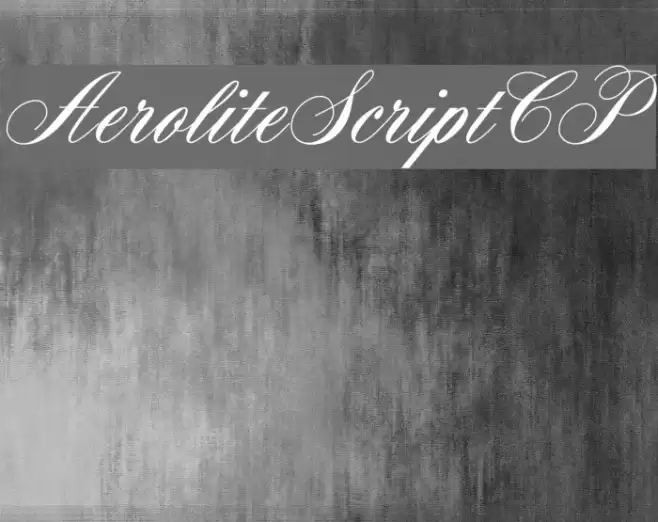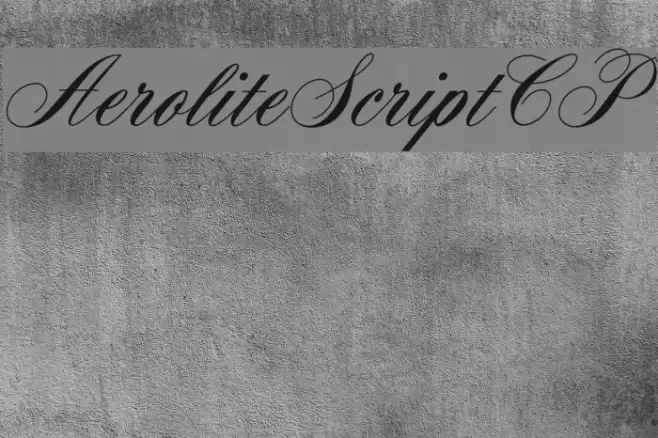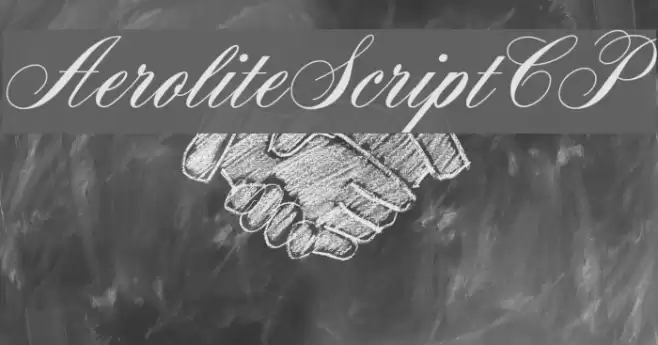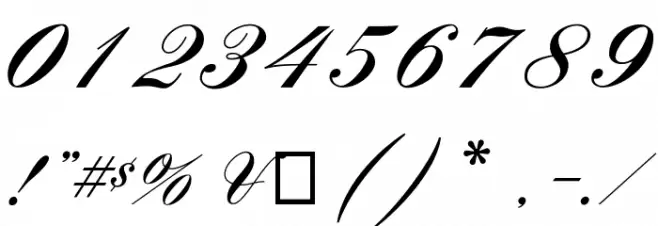
AeroliteScriptCP
This elegant script font features a flowing, cursive style with graceful, sweeping curves and loops. The uppercase letters are ornate and sophisticated, while the lowercase letters maintain a consistent, smooth flow. The numerals are stylish and complement the overall aesthetic, making them suitable for decorative purposes. The special characters are designed with the same attention to detail, ensuring a cohesive look across all glyphs. This font exudes a sense of luxury and refinement, making it ideal for formal invitations, branding, and other high-end design projects.
An elegant script font with flowing, cursive characters and refined details.
- Proposed Projects: Ideal for wedding invitations, luxury branding, elegant signage, and formal event programs.
- Category: Script
- Contrast: High
- Overall Style: Elegant, Decorative
- Use Case: Invitations, Branding, Signage